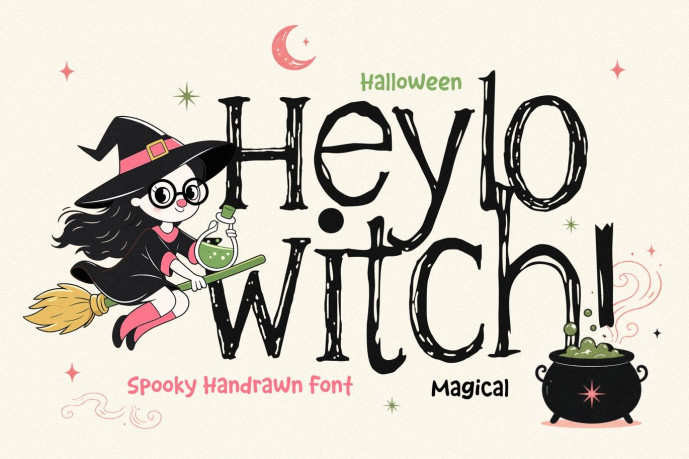
Heylowitch – Playful Halloween Font
Bring playful Halloween energy into your creative projects with Heylowitch – Playful Halloween Font. Designed with bold, hand-crafted letterforms and a fun spooky personality, this display font is perfect for seasonal designs that need a memorable and expressive typographic style. Its playful appearance makes it suitable for Halloween-themed invitations, posters, greeting cards, party decorations, banners, social media graphics, packaging, book covers, classroom materials, and many other creative projects.
Heylowitch combines a cheerful Halloween atmosphere with clear readability, making it easy to create eye-catching titles and display text. The character shapes feature organic curves and whimsical details that instantly communicate a festive spooky mood without becoming difficult to read. Whether you’re designing for Halloween events, haunted attractions, pumpkin festivals, trick-or-treat promotions, or autumn celebrations, this font helps your headlines become the center of attention.
Because the font is created entirely in uppercase, every word maintains a bold and consistent appearance. It also includes numbers, punctuation, and commonly used symbols, allowing you to build complete compositions without switching between multiple typefaces. Multilingual support makes Heylowitch suitable for projects intended for audiences across different languages.